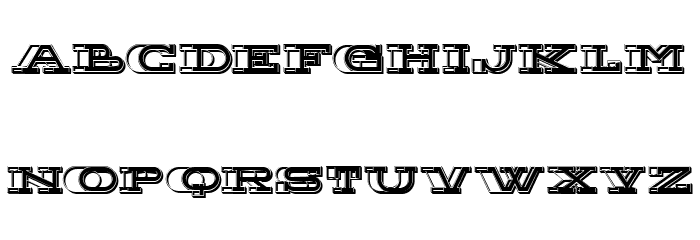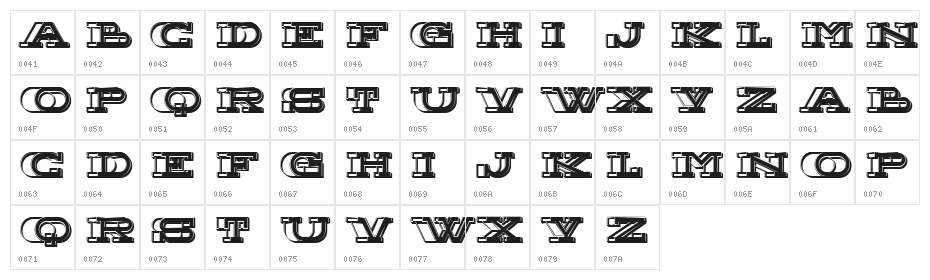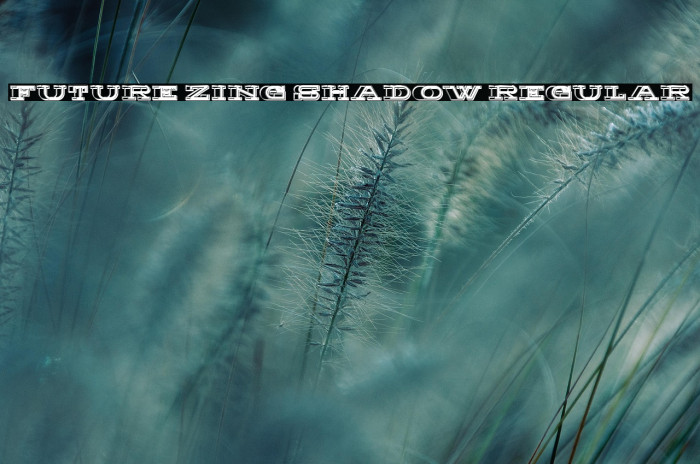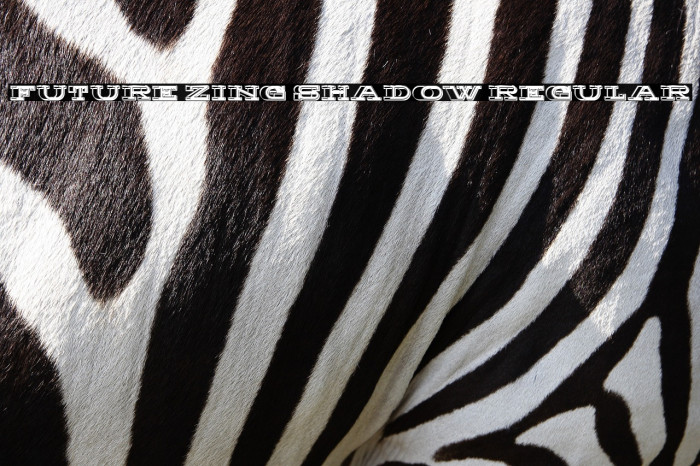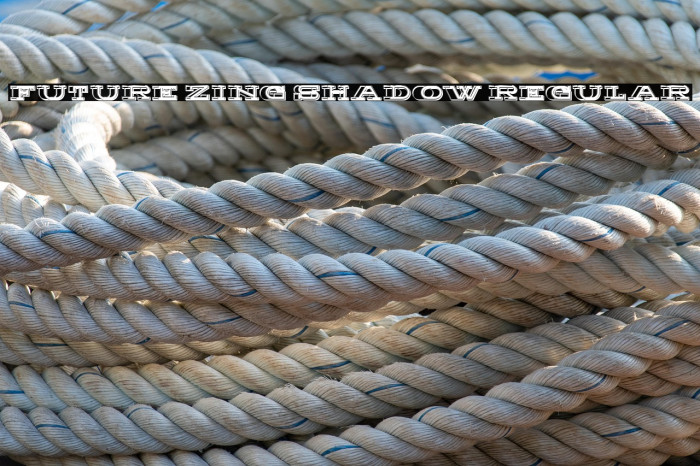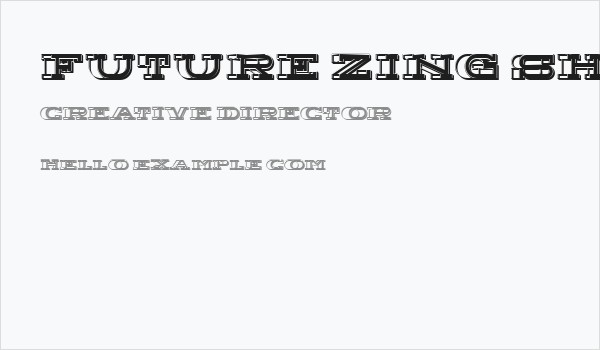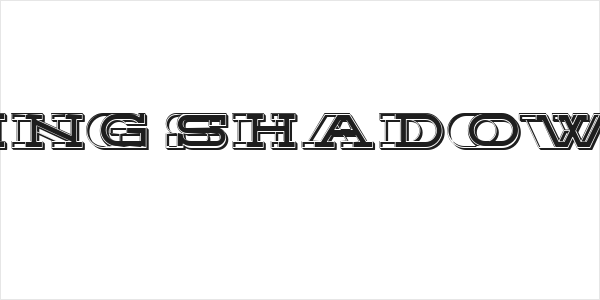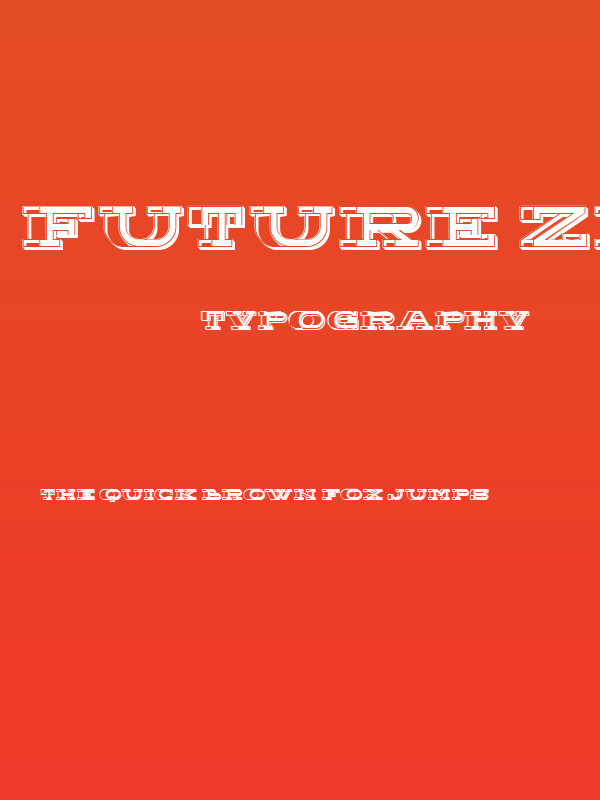
Future Zing Shadow Regular Font
Future Zing Shadow Regular Description
This font features a bold, decorative style with a distinct shadow effect that gives it a three-dimensional appearance. The characters are uppercase, with a strong geometric structure and sharp edges. The shadowing adds depth and a sense of movement, making it stand out in any design. The font is highly stylized, with a modern twist on classic serif elements. The intricate detailing within each letterform creates a dynamic visual impact, ideal for eye-catching headlines or logos. The spacing between characters is relatively tight, enhancing the cohesive look of the text. This font is perfect for projects that require a bold statement and a touch of sophistication.